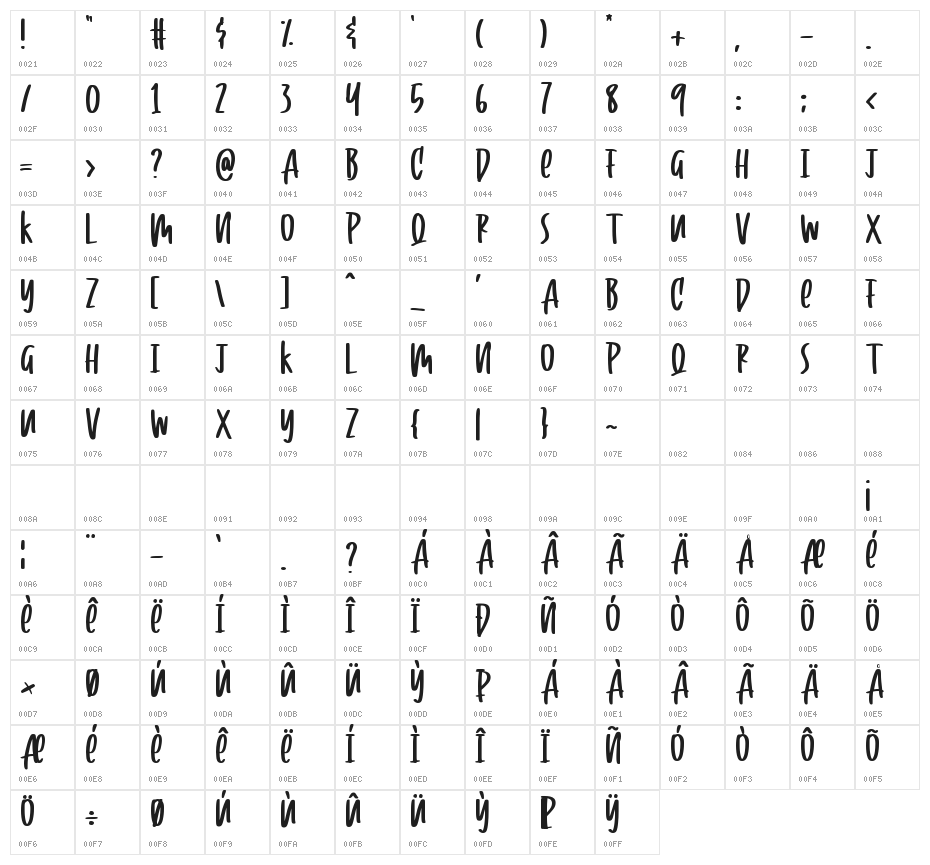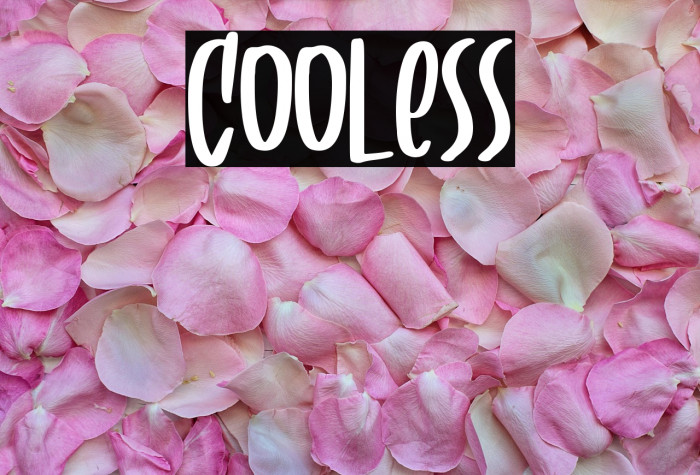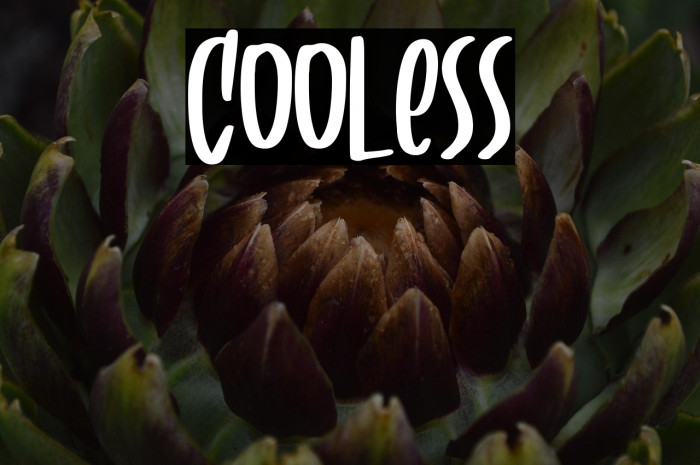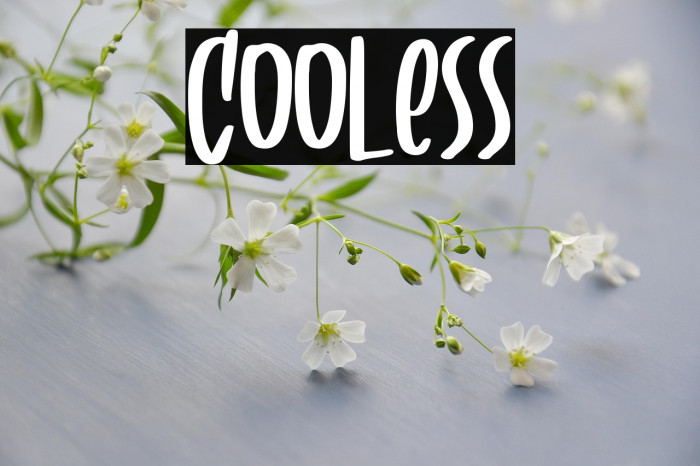
Cooless Font
Cooless Description
This font features a bold, handwritten style with a playful and energetic appearance. The letters are tall and slightly condensed, with a consistent stroke width that gives it a uniform look. The characters have a casual, informal feel, making them suitable for projects that require a personal touch. The uppercase and lowercase letters maintain a cohesive style, while the numbers and special characters blend seamlessly with the overall design. This font's lively and dynamic nature makes it ideal for creative and expressive projects.
| Width | Condensed |
| Use Case | Logos, Headlines, Posters |
| Proposed Projects | Perfect for greeting cards, posters, social media graphics, and branding projects that require a personal and lively touch. |